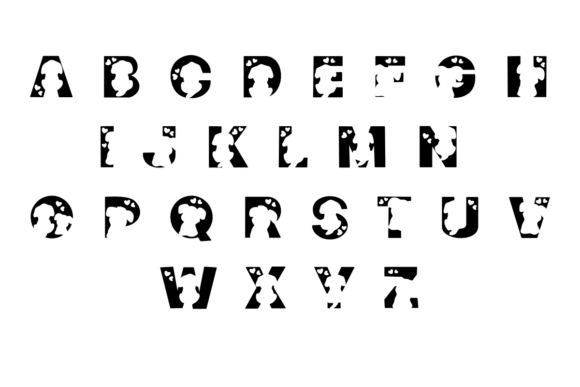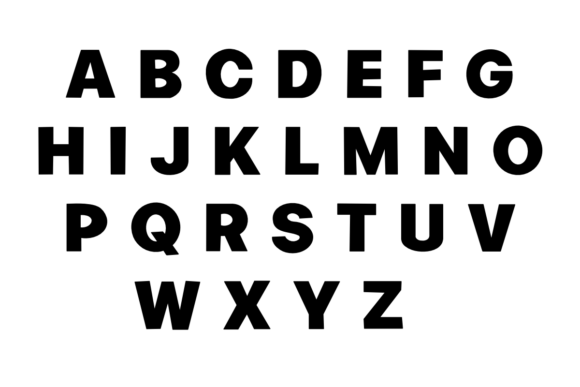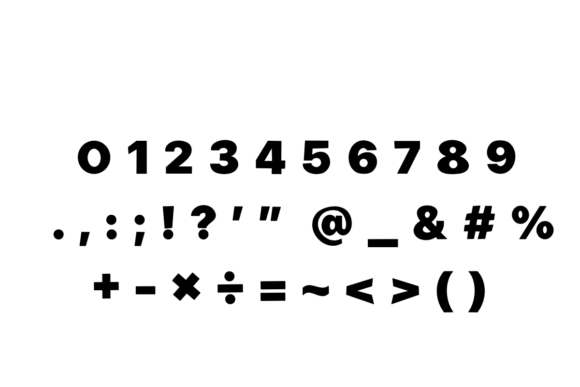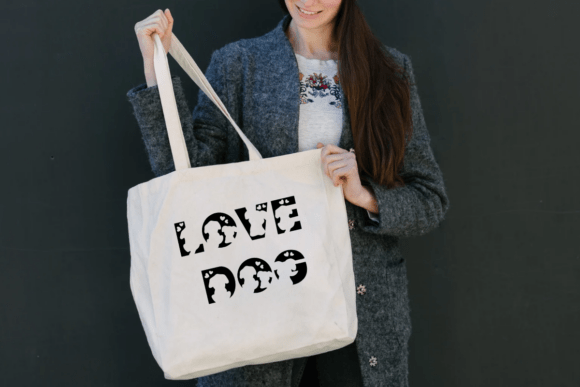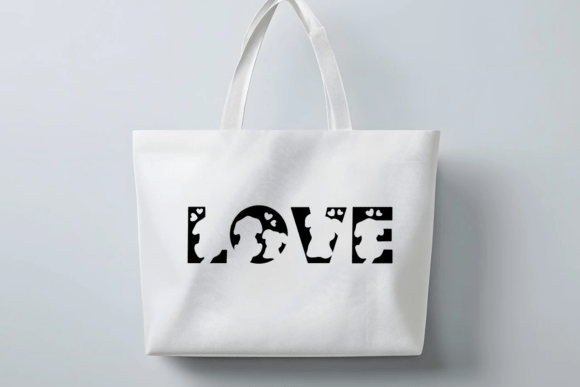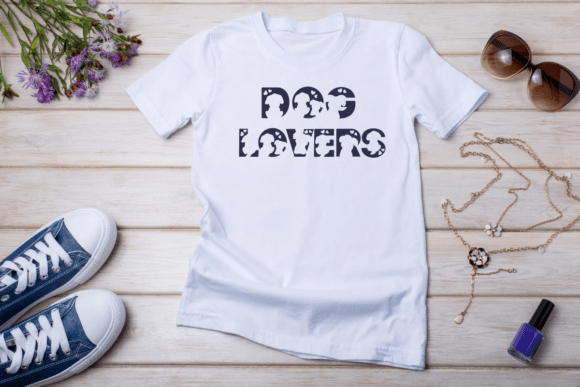
Introducing Dog Lovers Font: The Ultimate Decorative Font for Canine Enthusiasts
Are you a dog lover looking for a unique and cool font to add to your creative projects? Look no further! Dog Lovers Font is a decorative font that is sure to make your designs stand out. In this article, we’ll take a closer look at this amazing font and explore its features, benefits, and uses.
What is Dog Lovers Font?
Dog Lovers Font is a decorative font designed specifically for dog enthusiasts. It’s a cool and unique font that features adorable dog-themed characters, making it perfect for a wide range of creative projects, from dog-themed designs to crafty DIY projects.
Features of Dog Lovers Font
- Unique and Adorable Characters: Dog Lovers Font features a range of adorable dog-themed characters, including letters, numbers, and symbols.
- High-Quality Design: The font is designed with high-quality graphics, ensuring that it looks great in any design.
Benefits of Using Dog Lovers Font
Using Dog Lovers Font in your creative projects offers a range of benefits, including:
- Adds a Personal Touch: The font adds a personal touch to your designs, making them more unique and engaging.
- Perfect for Dog-Themed Designs: Dog Lovers Font is perfect for dog-themed designs, such as dog logos, dog posters, and dog social media graphics.
- Increases Engagement: The font’s adorable characters are sure to grab attention and increase engagement with your audience.
- Versatile: Dog Lovers Font can be used in a wide range of creative projects, from digital designs to crafty DIY projects.
Uses of Dog Lovers Font
Dog Lovers Font can be used in a variety of creative projects, including:
- Digital Designs: Use the font in digital designs, such as social media graphics, blog posts, and email marketing campaigns.
- Print Designs: Use the font in print designs, such as posters, flyers, and brochures.
- Crafty DIY Projects: Use the font in crafty DIY projects, such as handmade cards, scrapbooking, and iron-on designs.
- Dog-Themed Merchandise: Use the font to create dog-themed merchandise, such as t-shirts, mugs, and phone cases.
Dog Lovers Font is a cool and unique decorative font that is perfect for dog enthusiasts and designers. With its adorable dog-themed characters, high-quality design, and ease of use, it’s a great addition to any creative project. Whether you’re creating digital designs, print designs, or crafty DIY projects, Dog Lovers Font is sure to make your designs stand out. So why wait? Download Dog Lovers Font today and add it to your creative projects!